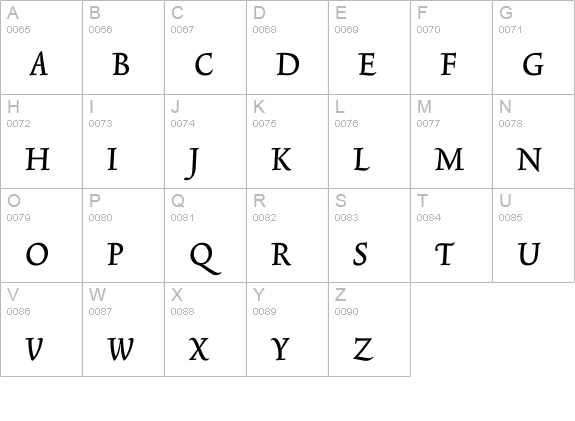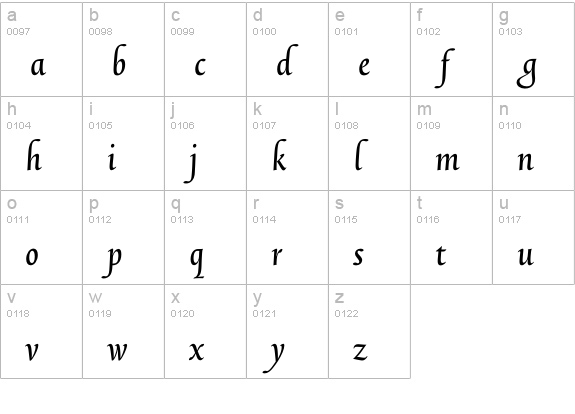
TriniteNo4-MediumItalic Font Details
TriniteNo4-MediumItalic is a stunningly elegant font that effortlessly combines modernity with a touch of classic sophistication. Its medium weight adds a perfect balance to its italicized slant, resulting in a font that is both stylish and readable. Designed with meticulous attention to detail, TriniteNo4-MediumItalic features clean and crisp letterforms with just the right amount of curvature to create a harmonious visual flow. The medium weight gives it a versatile nature, making it suitable for a wide range of design projects. Whether you're creating a sleek logo, designing a captivating website, or crafting eye-catching marketing materials, TriniteNo4-MediumItalic is sure to elevate your work to the next level. Its distinct personality adds a touch of refinement and professionalism, making it a perfect choice for any project that requires a touch of elegance. And the best part? TriniteNo4-MediumItalic is freely available to download at FontsMarket.com. This means that you can enhance your designs with this exceptional font without any cost. Simply head over to FontsMarket.com, find the TriniteNo4-MediumItalic font, and start using it in your projects right away. So why wait? Embrace the beauty and versatility of TriniteNo4-MediumItalic and let its effortlessly stylish presence take your designs to new heights. Download it for free at FontsMarket.com today and experience the seamless blend of modernity and timeless elegance that this font has to offer.